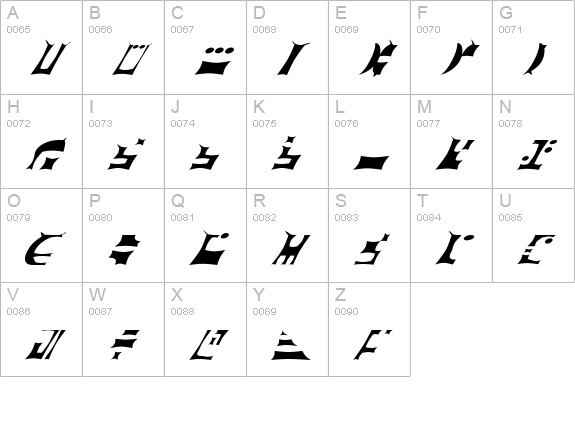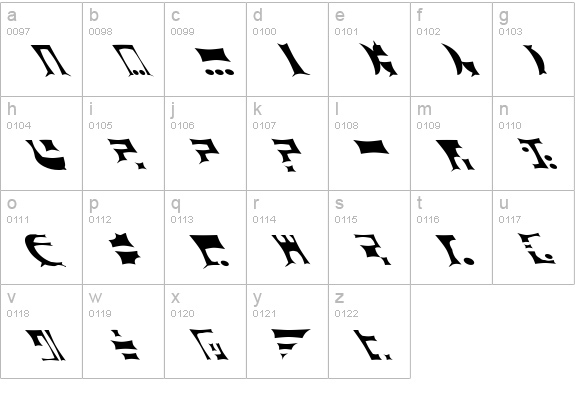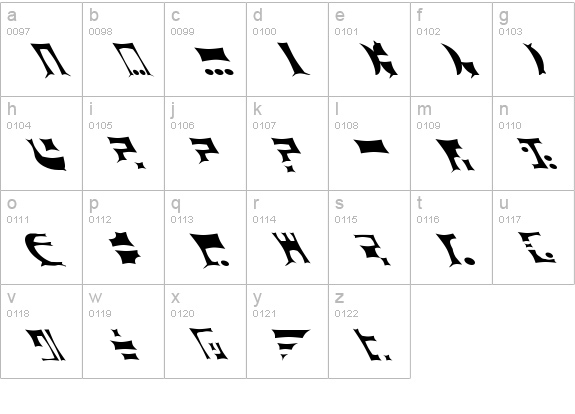
ST Ferengi Gothic R Font Details
ST Ferengi Gothic R is a stunningly unique font that effortlessly blends elegance and edginess. This font exudes a captivating allure that is perfect for adding a touch of sophistication to any design project. With its bold and intricate letterforms, ST Ferengi Gothic R commands attention and makes a lasting impression. Designed with meticulous attention to detail, this font showcases a delicate balance between sharp angles and smooth curves, creating a visually striking aesthetic. Its intricate lines and dramatic strokes give each character a sense of depth and dimension, making it a true standout amongst other gothic fonts. Not only does ST Ferengi Gothic R possess an undeniable visual appeal, but it also offers unparalleled versatility. Whether you're designing a logo, creating a poster, or crafting a website, this font will effortlessly elevate your work to new heights. Its clean and legible letterforms ensure readability across various mediums, making it suitable for both print and digital projects. One of the most remarkable aspects of ST Ferengi Gothic R is that it is available for free. Yes, you read that right - this exceptional font can be freely downloaded at FontsMarket.com. This means that you can enjoy the beauty and elegance of ST Ferengi Gothic R without any cost, making it an invaluable addition to your font library. So why wait? Unlock the boundless creative possibilities that ST Ferengi Gothic R offers and experience the power of this extraordinary font for yourself. Download it for free at FontsMarket.com and let your imagination run wild.